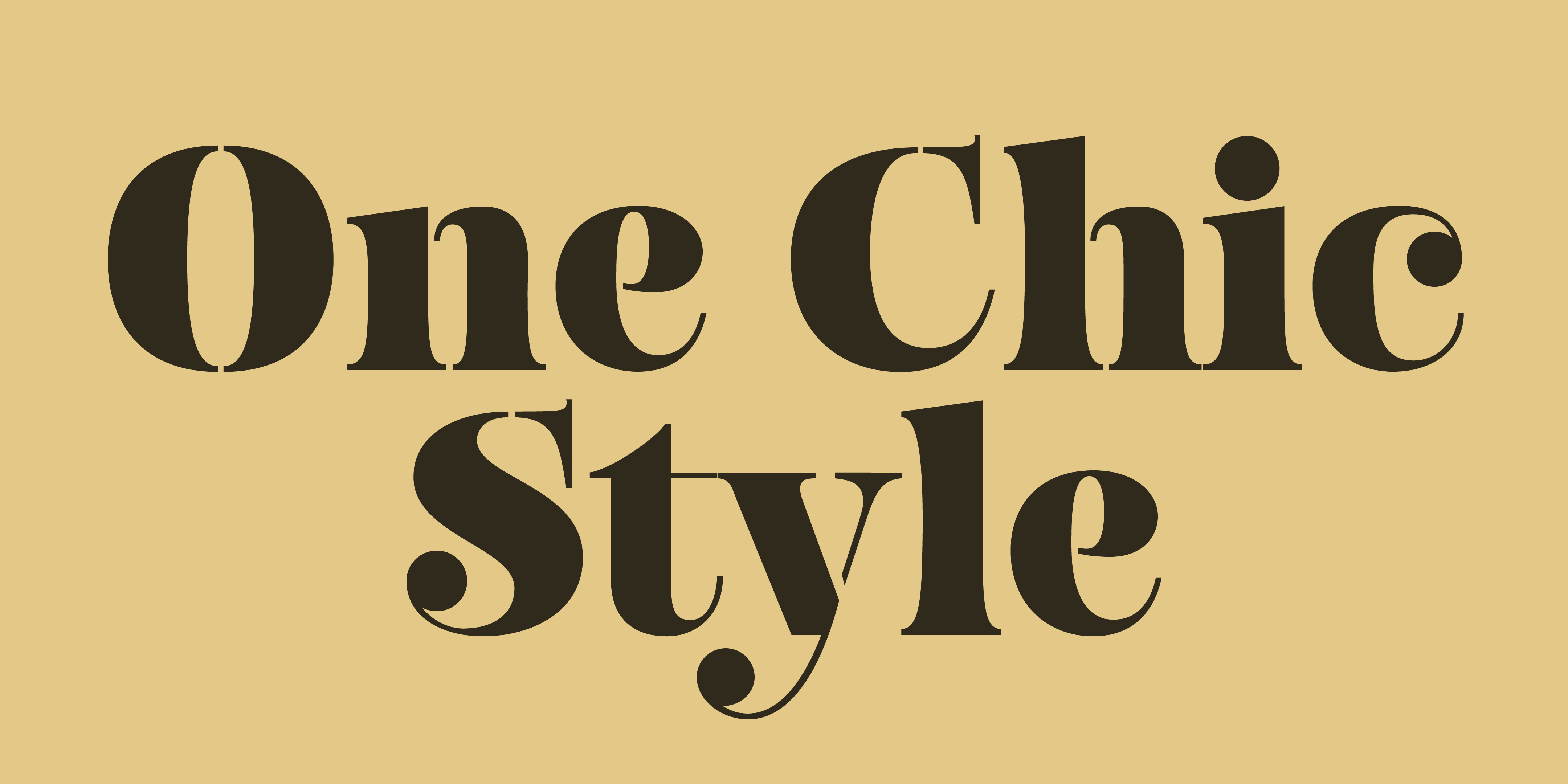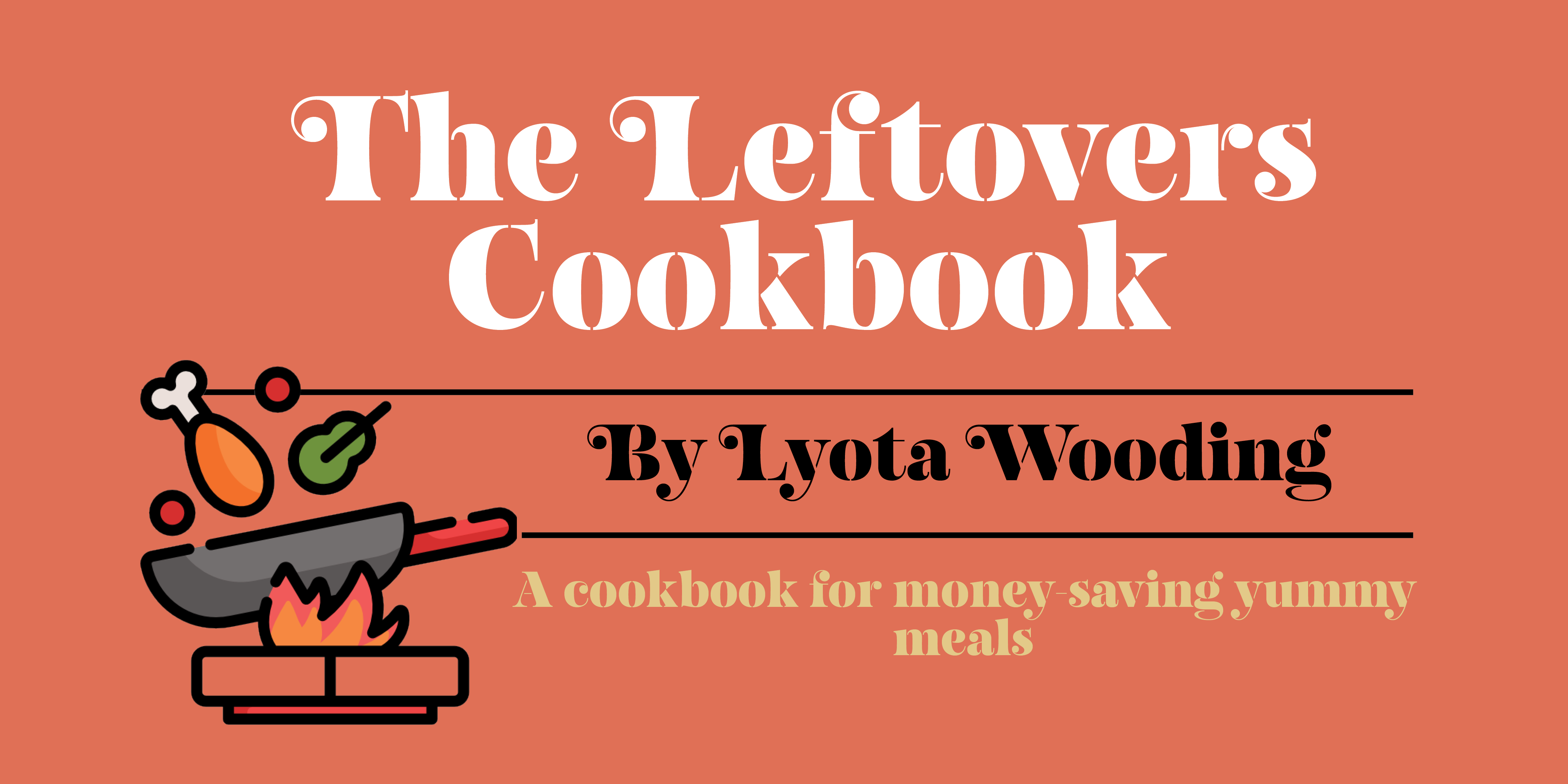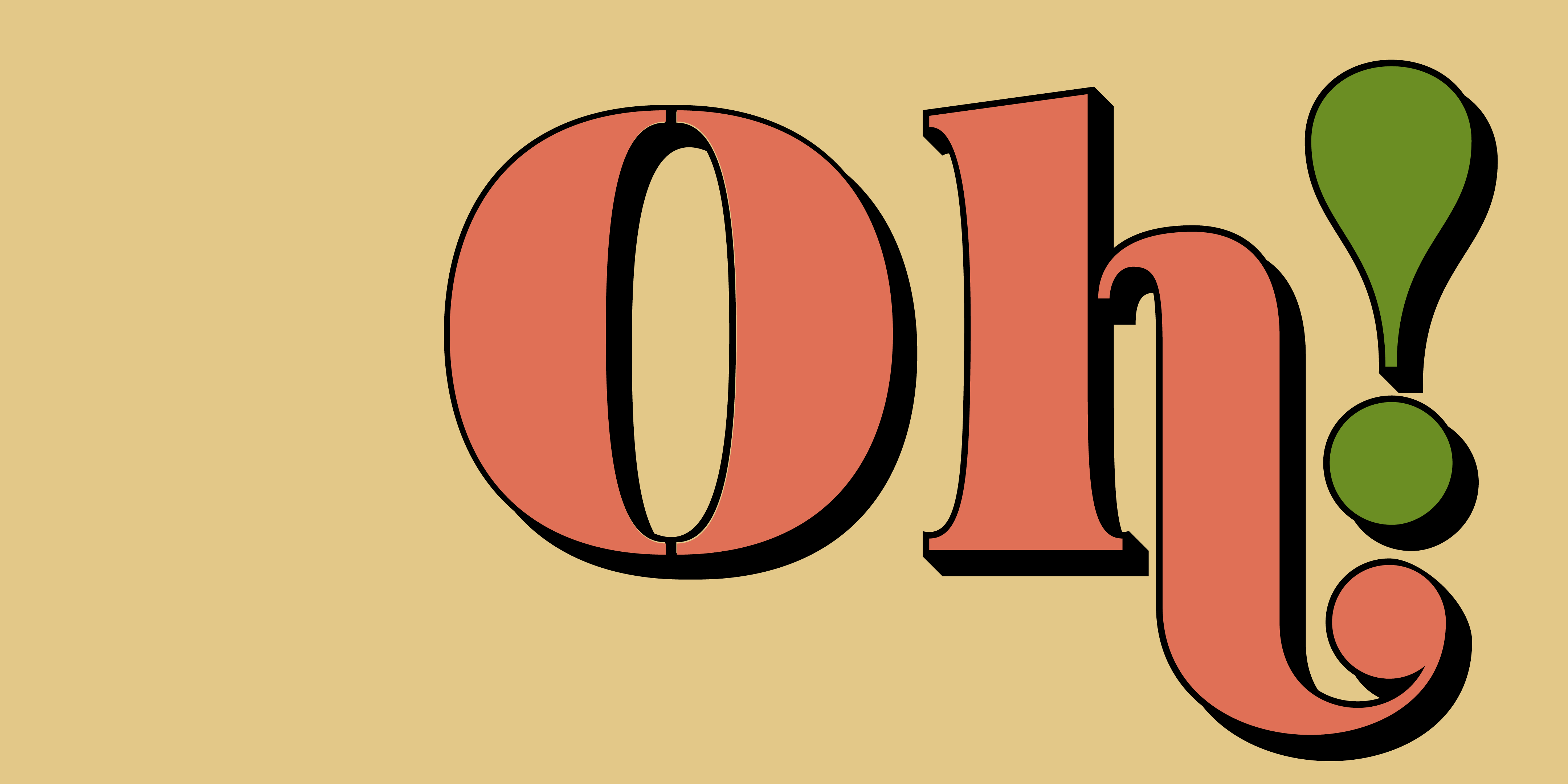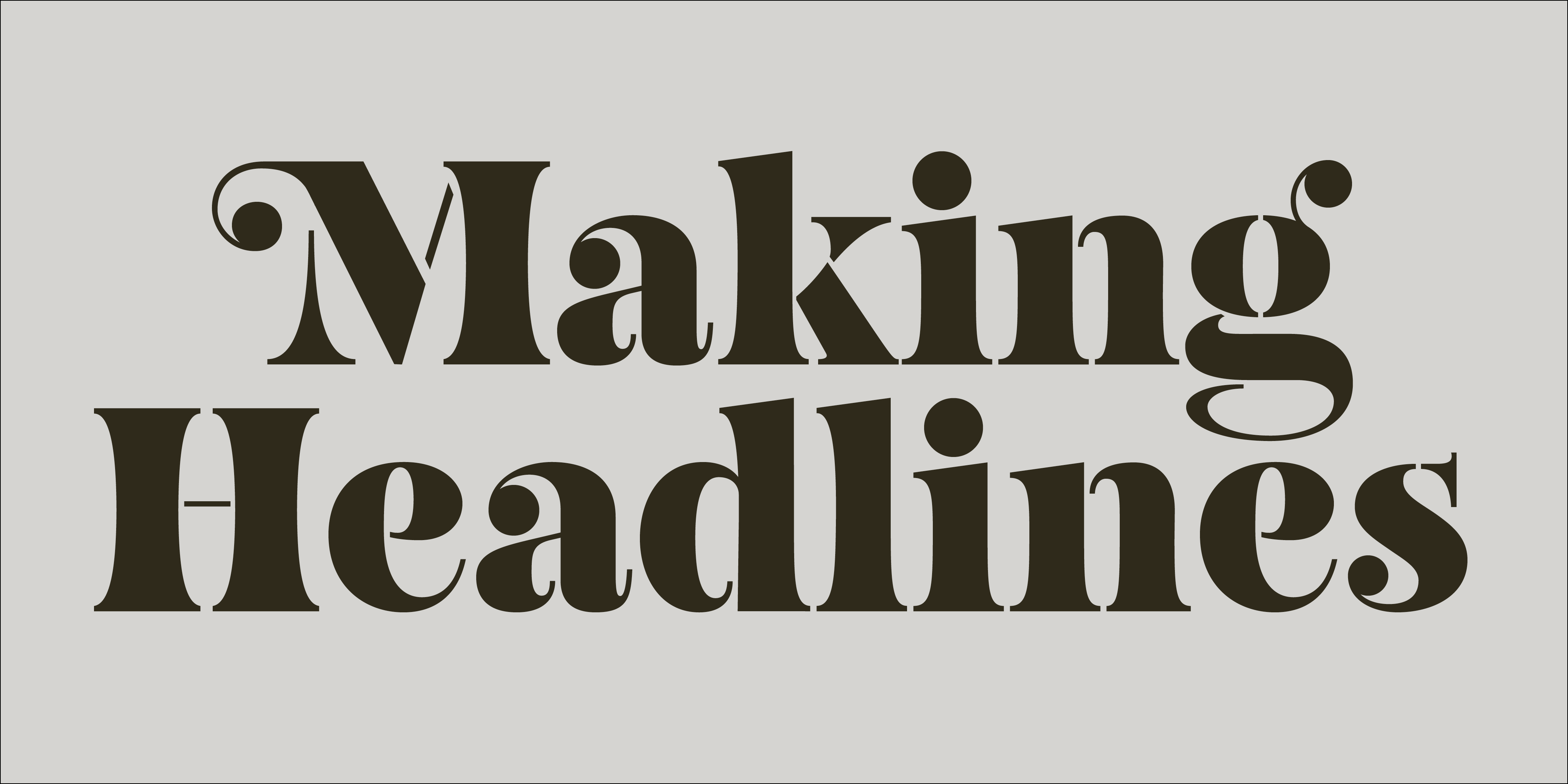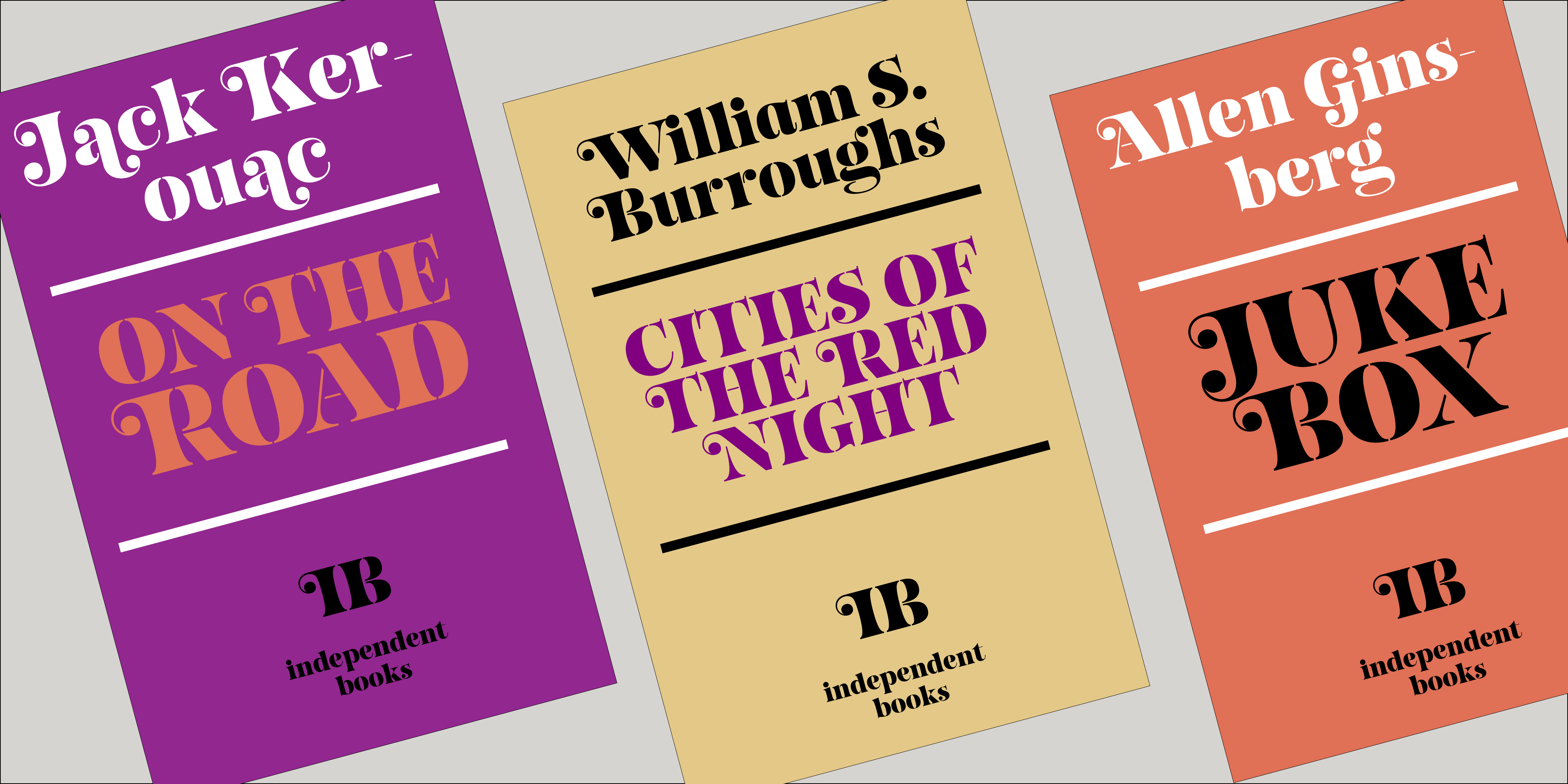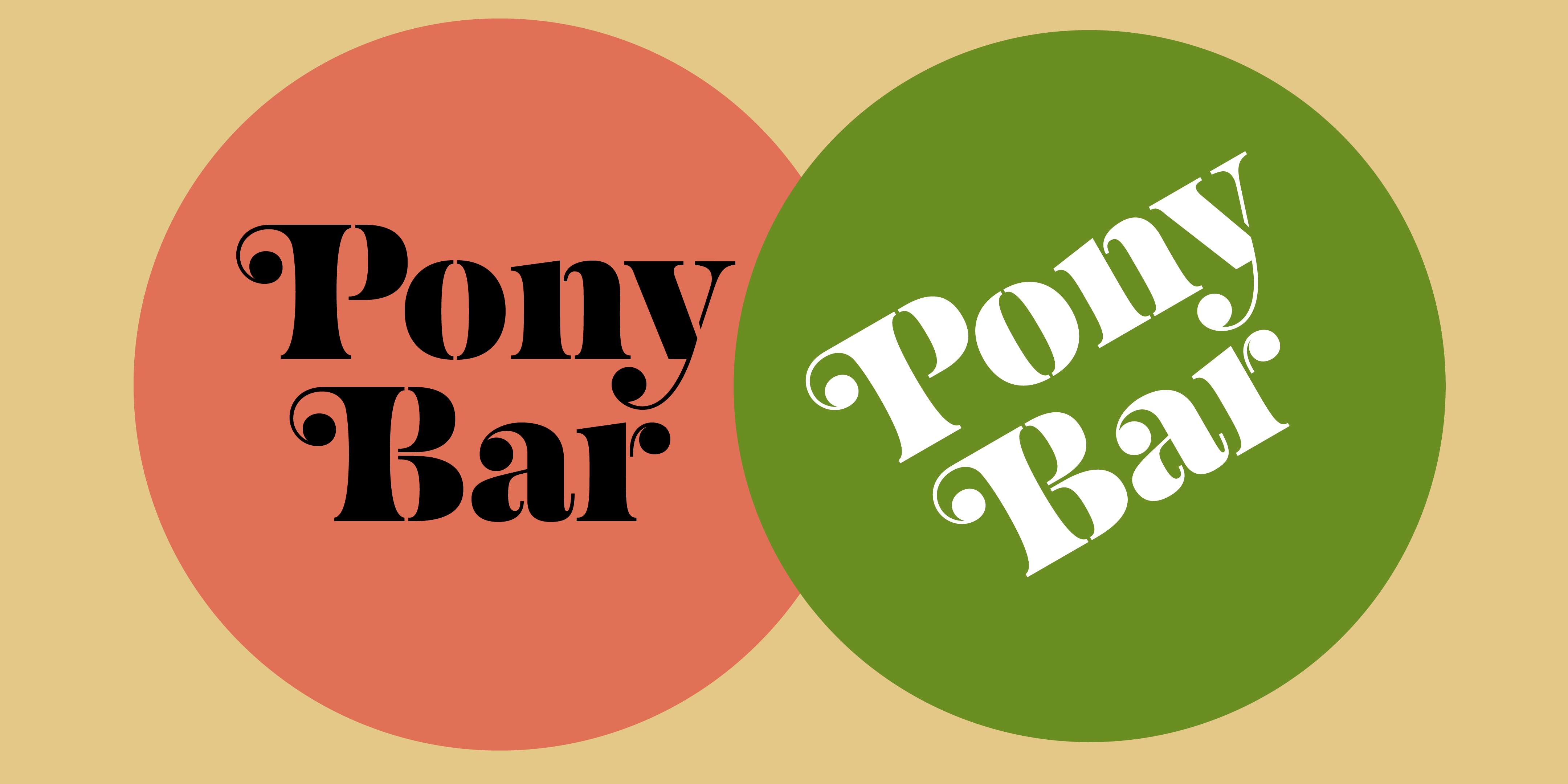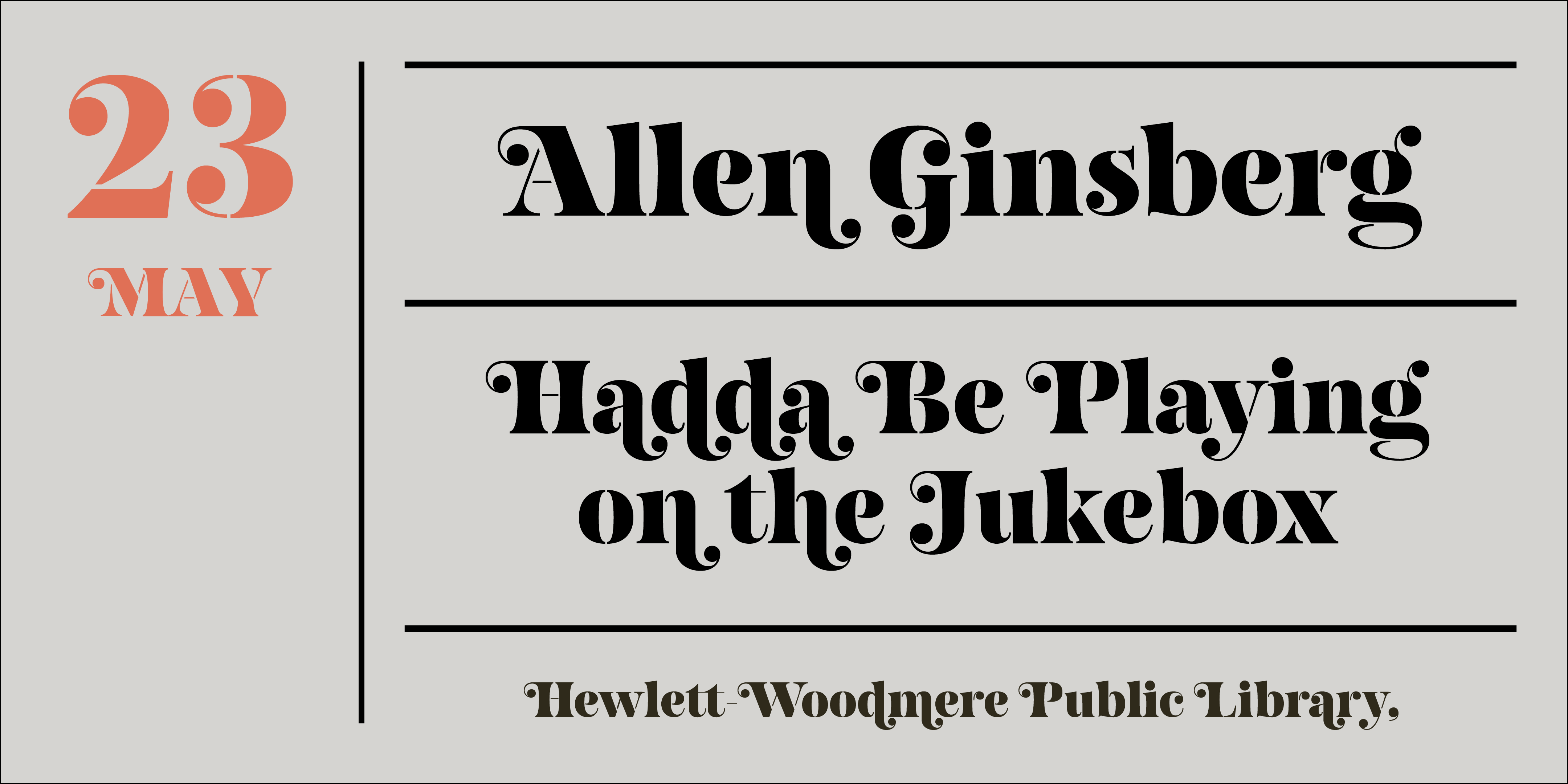
Fabulosa embodies a unique vision, merging historical influences from the ‘fat face’ typography style and the exuberant flair of Ed Benguiat’s Caslon Black Swash, designed for Photo Lettering, Inc. around the 1960s. The ‘fat face’ style, with its exaggerated strokes, is believed to have been pioneered by typefounder Robert Thorne (1753–1820) in the early 19th century. Thorne’s innovation was a robust evolution of the modern type styles, characterized by their strong contrast and heavy serifs. Caslon Black Swash, on the other hand, is a vivid representation of mid-20th-century typographic creativity. Its swashes and decorative flourishes evoke a sense of nostalgia, harking back to the ornate letterforms of earlier centuries while also fitting into the vibrant graphic culture of the 70s. Drawing from these sources of inspiration and her love for stencils, Laura set out to create Fabulosa. Her vision was to craft a typeface that seamlessly blended the retro with the fantastical, infusing it with a touch of glamour. Fabulosa stands out not just as a font but as a statement piece,timeless and contemporary, perfect for projects that seek to evoke a sense of stylish nostalgia while also making a bold visual impact to be used in a variety of contexts, from high-fashion magazines to quirky indie film posters.